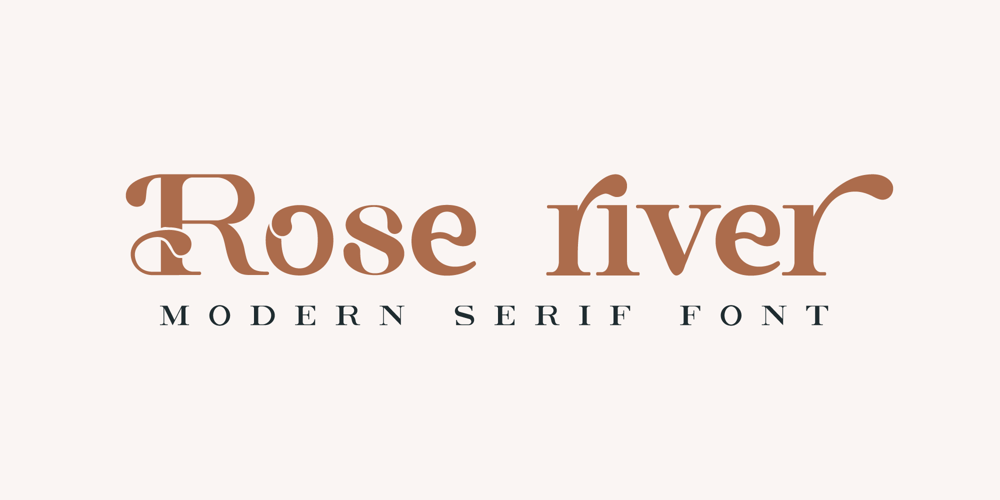
Rose River
Rose River font
Rose River Font Family was designed by Yahya Qara and published by Yahya Type. Rose River contains 1 styles and family package options. Rose river – This font has more than 70 unique alternate and ligature to give your logo, business card, and another project a unique vintage look.Rose river – this style works well for branding projects, logo, wedding designs, social media posts, advertisements, product packaging, product designs, label, photography, watermark, invitation, or whatever project you’re working on.WHAT’S INCLUDED? Uppercase & lowercase letters. numbers. punctuation Ligature & Huge Stylistic alternate. Multilingual support. Still got a question? Send me a message and I’ll be happy to answer!qura.yahya@gmail.com